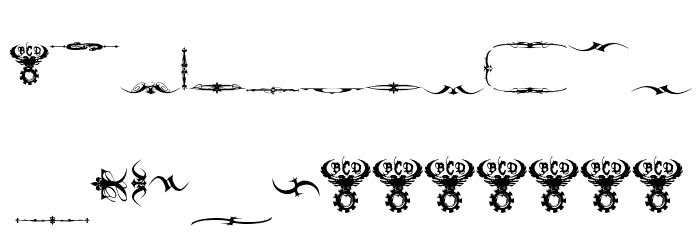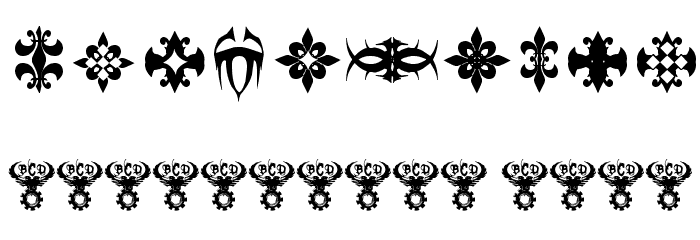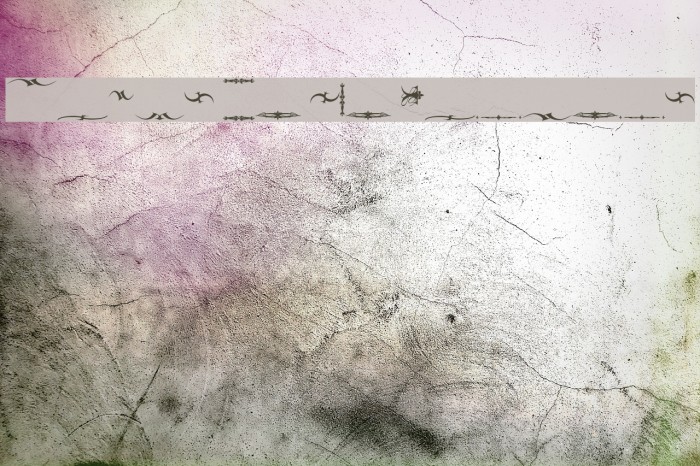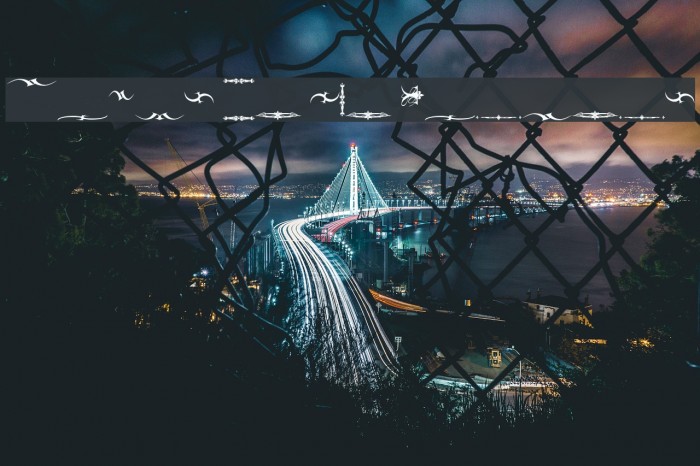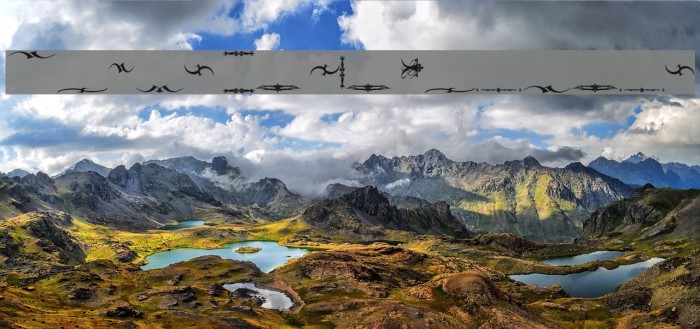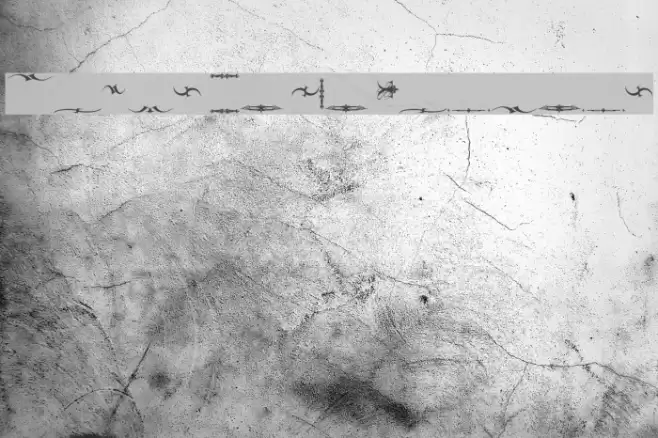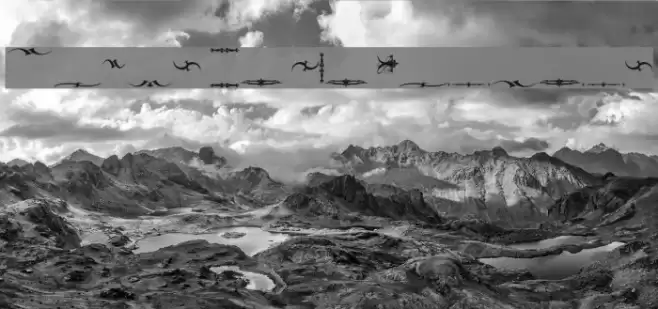
Marquis De Sade Ornaments Font
This collection of ornamental designs is characterized by intricate and elaborate patterns that evoke a sense of elegance and sophistication. The designs feature a variety of symmetrical and asymmetrical shapes, including flourishes, swirls, and floral motifs. These elements are intricately detailed, with fine lines and curves that create a sense of movement and fluidity. The ornaments are versatile and can be used to enhance the visual appeal of various design projects, adding a touch of classic or vintage charm. The overall style is decorative, with a focus on aesthetics and embellishment.
Intricate and elegant ornamental designs with flourishes and floral motifs.